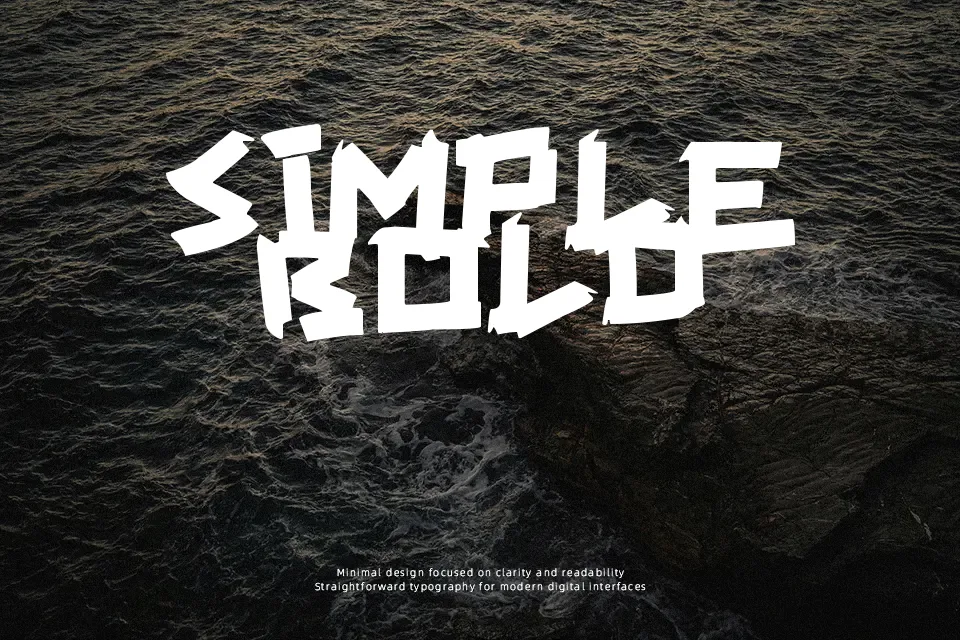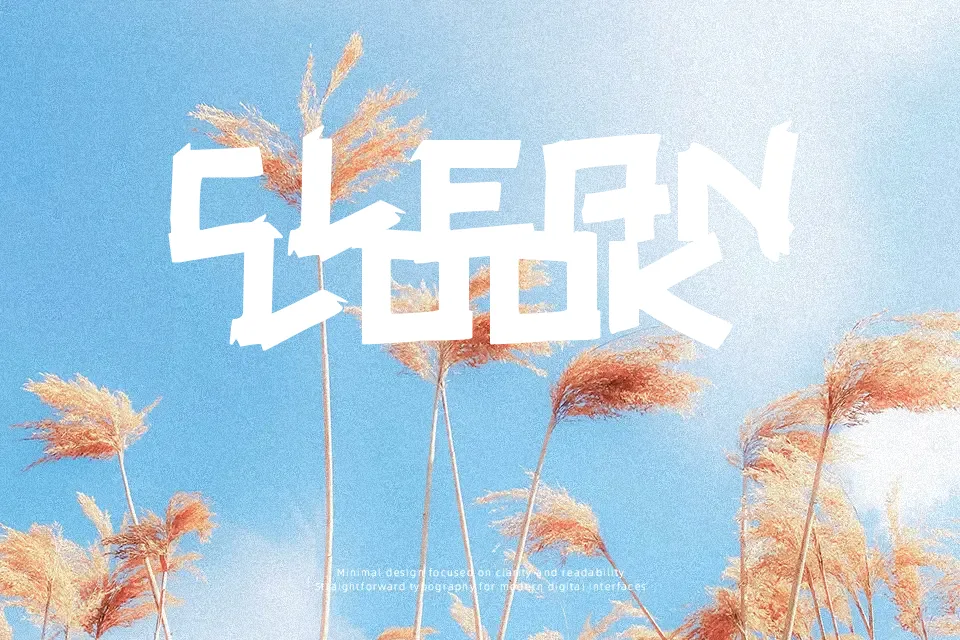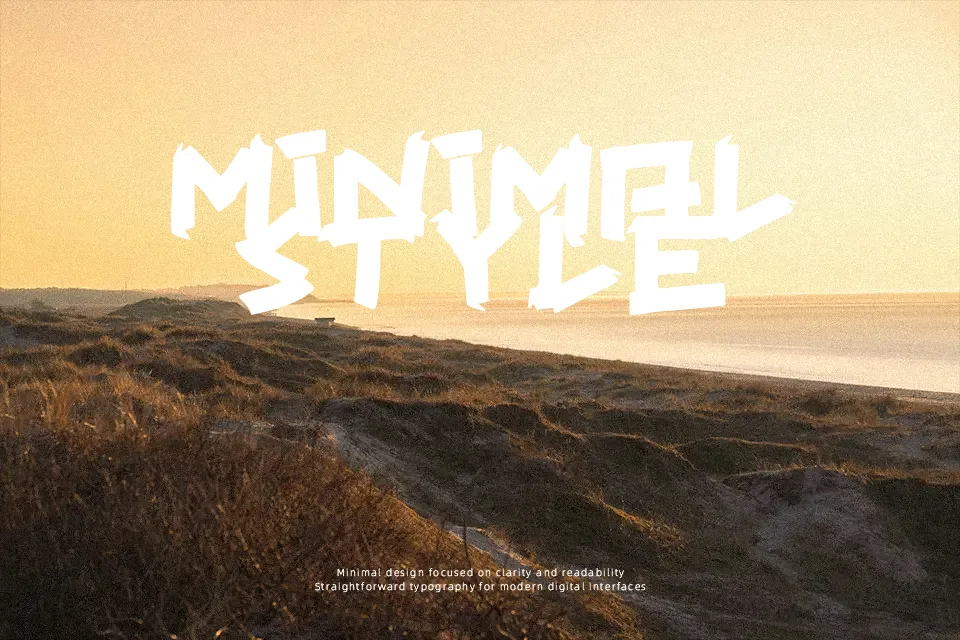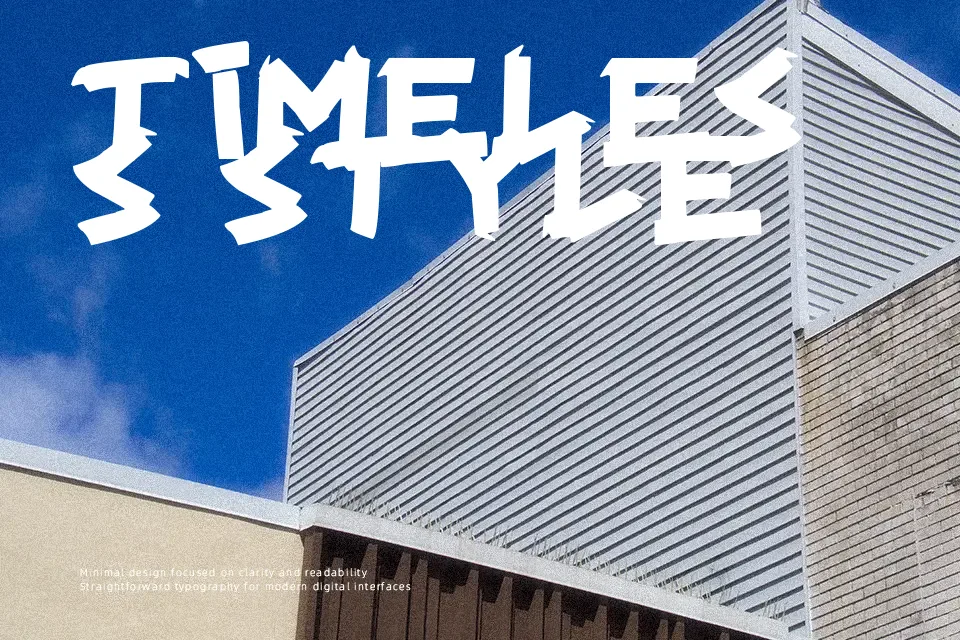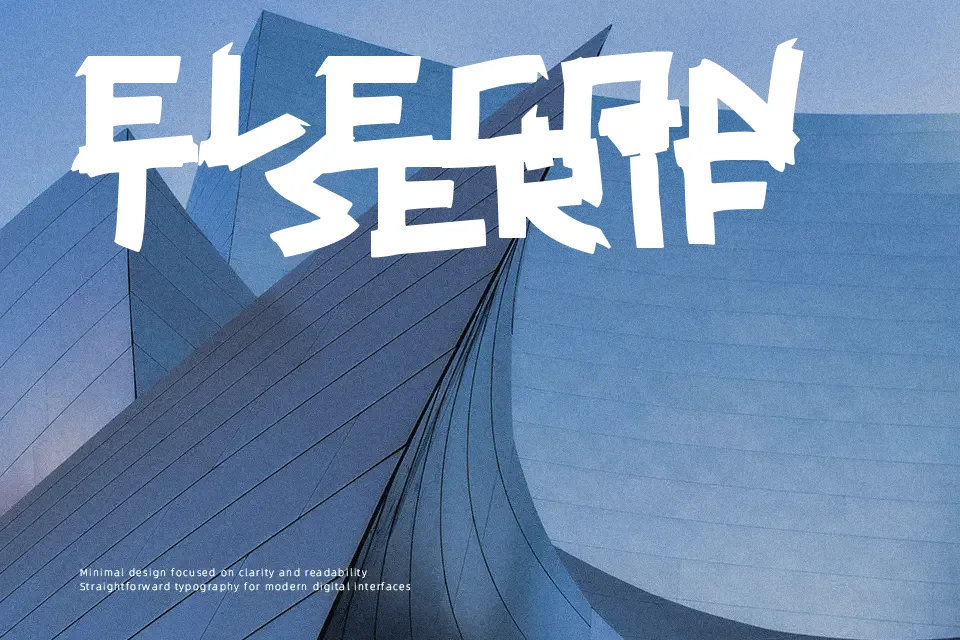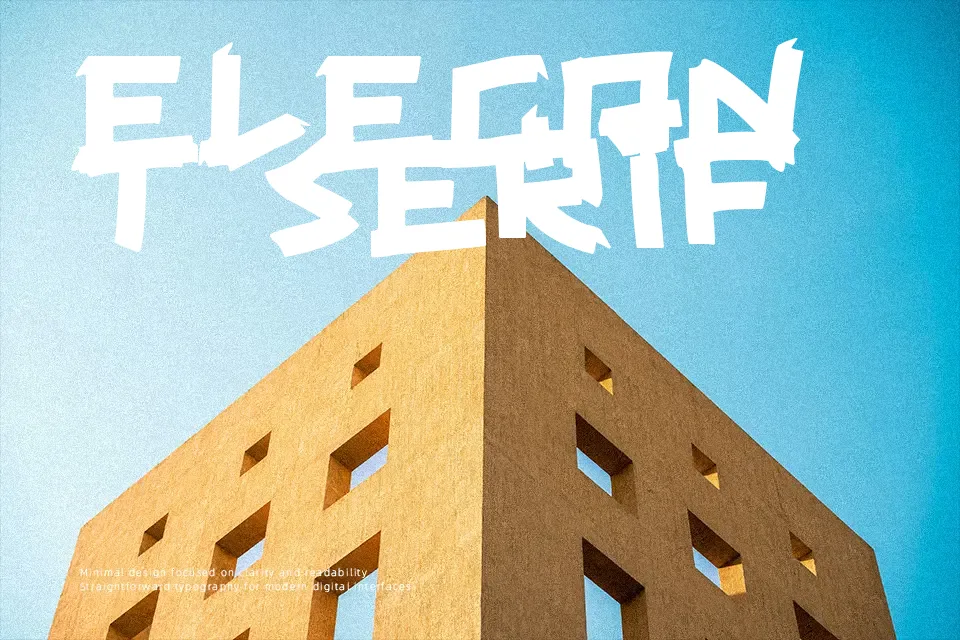
Taped Up Tight Font
Designed by Darrell Flood
Taped Up Tight Font features an unconventional display structure built from straight, overlapping segments that closely resemble strips of duct tape. Each glyph exhibits heavy uniform strokes, sharp angular joints, and rugged terminals that create an immediate handmade aesthetic. The proportions remain broad with compact character spacing, producing dense word shapes that preserve legibility in large display titles. However, the heavy visual complexity and fragmented stroke joins significantly reduce reading ease across smaller text blocks. It serves as an effective decorative choice for expressive creative projects, though prolonged editorial paragraphs and formal documents are ill-suited for this design.
comic book covers,music festival posters,streetwear graphic tees,craft product packaging
long paragraph text,mobile user interfaces,corporate financial reports,dense editorial layouts
Perfect for gaming, headline, and packaging, with a bold and comic style.